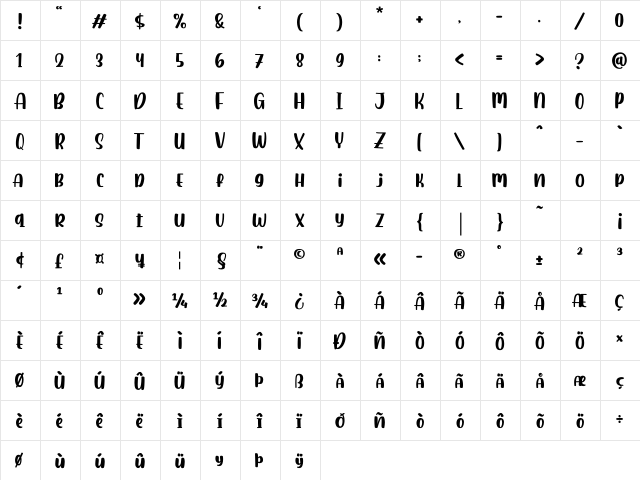
Baimbo Regular
Design Context for Baimbo Typeface
Baimbo is a composed and adaptable typeface that performs quietly and consistently across a wide range of design contexts.